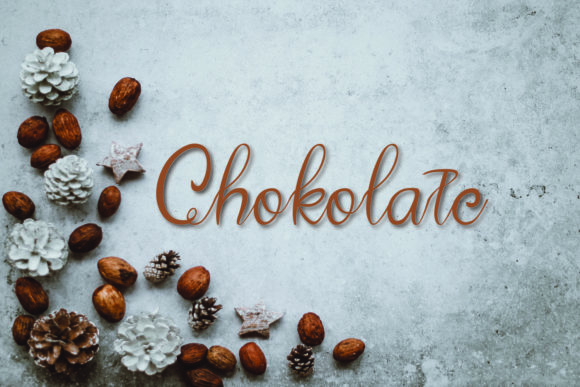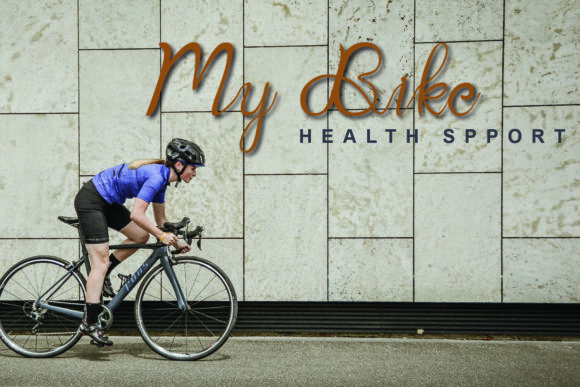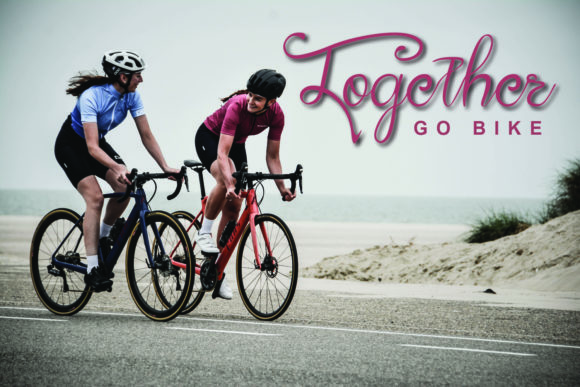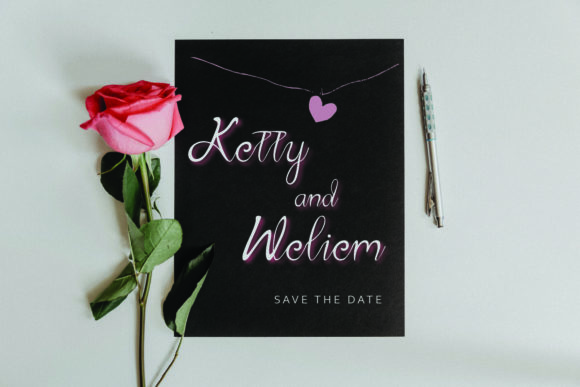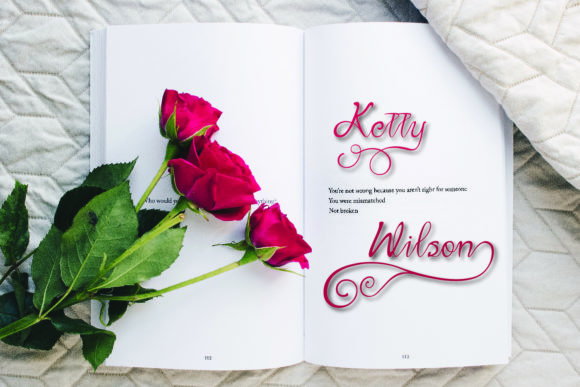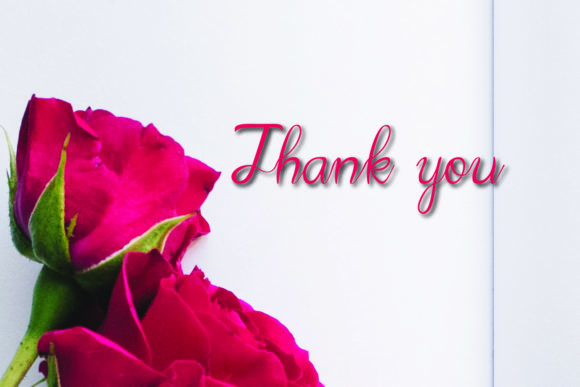
Introducing Dealova Font: Elevate Your Designs with Elegance and Sophistication
Are you a designer or crafter looking for a font that exudes class, elegance, and sophistication? Look no further than Dealova Font. This delicate and flowing handwritten font is perfect for those who want to add a touch of refinement and luxury to their projects. In this article, we’ll dive into the world of Dealova Font, exploring its features, benefits, and uses, and show you how it can take your designs to the highest levels.
What is Dealova Font?
Dealova Font is a beautiful, handwritten font that boasts a classy calligraphic influence while feeling contemporary and fresh. Its delicate and flowing strokes evoke a sense of elegance and sophistication, making it perfect for designs that require a touch of luxury. Whether you’re working on a branding project, a wedding invitation, or a craft project, Dealova Font is sure to impress.
Key Features of Dealova Font
- Delicate and flowing strokes: Dealova Font features delicate and flowing strokes that give it a sense of elegance and sophistication.
- Classy calligraphic influences: The font’s calligraphic influences add a touch of refinement and luxury to your designs.
- Contemporary and fresh feel: Despite its classic influences, Dealova Font feels modern and fresh, making it perfect for a wide range of design projects.
- Handwritten charm: The font’s handwritten nature gives it a personal and unique touch that’s sure to capture the attention of your audience.
Benefits of Using Dealova Font
So, why should you choose Dealova Font for your next project? Here are just a few benefits of using this stunning font:
- Adds elegance and sophistication: Dealova Font is the perfect way to add a touch of elegance and sophistication to your designs.
- Versatile: The font’s versatility makes it suitable for a wide range of design projects, from branding and advertising to wedding invitations and craft projects.
- Easy to read: Despite its delicate nature, Dealova Font is easy to read, making it perfect for body text and headlines.
- Unique and personal: The font’s handwritten nature gives it a unique and personal touch that’s sure to set your designs apart.
Uses of Dealova Font
So, what can you use Dealova Font for? The possibilities are endless! Here are a few ideas to get you started:
- Branding and advertising: Use Dealova Font to create stunning brand identities, logos, and ad campaigns that exude elegance and sophistication.
- Wedding invitations and stationery: Add a touch of luxury and romance to your wedding invitations, stationery, and other wedding-related designs.
- Craft projects: Use Dealova Font to create beautiful craft projects, such as handmade cards, gift tags, and other paper crafts.
- Digital products: Use Dealova Font to create stunning digital products, such as ebooks, workbooks, and other digital publications.
Tips for Using Dealova Font
Here are a few tips for using Dealova Font in your designs:
- Pair it with a sans-serif font: Pair Dealova Font with a sans-serif font to create a beautiful contrast that adds visual interest to your designs.
- Use it for headlines and body text: Dealova Font is easy to read, making it perfect for both headlines and body text.
- Experiment with colors and textures: Add depth and visual interest to your designs by experimenting with different colors and textures.
In conclusion, Dealova Font is a stunning, handwritten font that’s perfect for designers and crafters who want to add a touch of elegance and sophistication to their projects. With its delicate and flowing strokes, classy calligraphic influences, and contemporary feel, Dealova Font is sure to impress. Whether you’re working on a branding project, a wedding invitation, or a craft project, Dealova Font is the perfect choice. So why wait? Fall in love with Dealova Font and bring your projects to the highest levels!